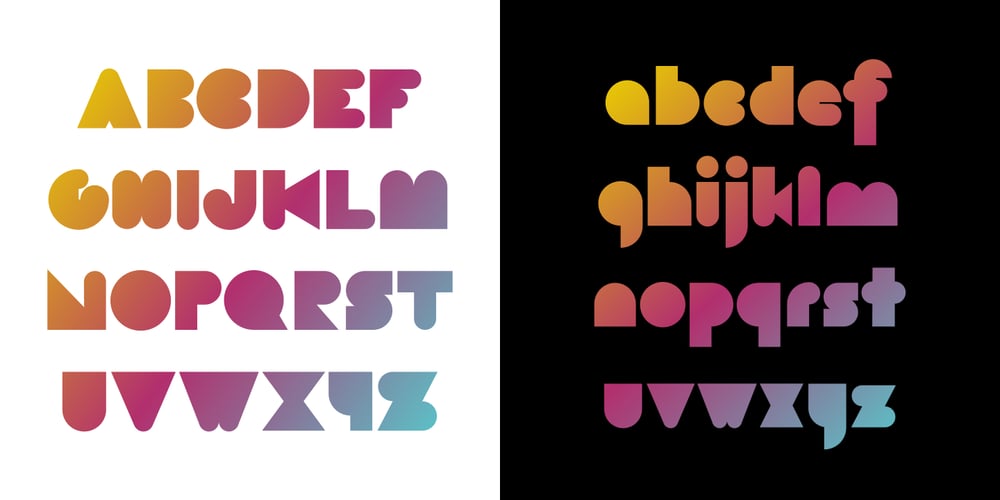
Vecmetry Font Family was designed by Çağıl Aygen and published by Velvele. Vecmetry contains 4 styles and family package options. This font is more than just letters, it’s inspired by VECTOR ART. It’s name, VECMETRY’ comes from the combination of vector and geometry, that’s why it keeps the most basic elements of design: circle, square and triangle. Vecmetry family has 4 LAYER ABLE FONTS and offers endless combinations; and this makes it especially perfect for headlines and logos. Besides, it supports 5 different languages: ENGLISH, ESPAÑOL, FRANÇAIS, ITALIANO and TÜRKÇE. _(189 glyphs)_